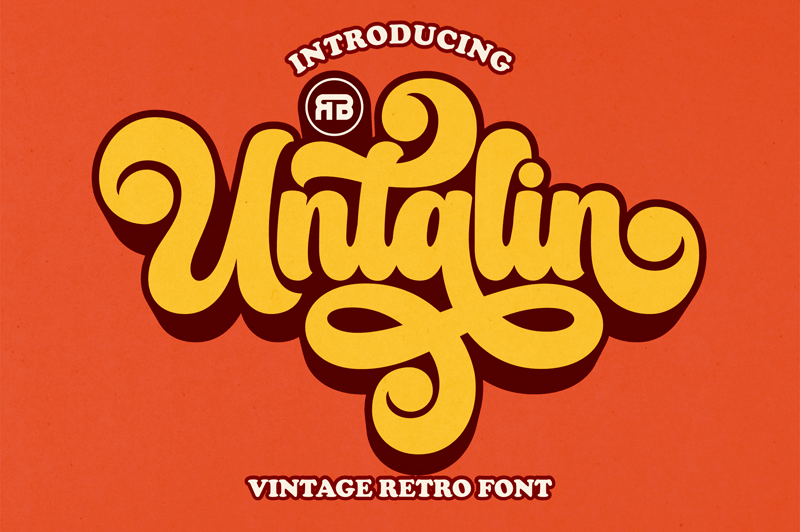
Font name: | Untalin |
Author: | RGB Studio |
Untalin is a Vintage retro font. Inspired from retro typography and lettering in the 70's and 80's combine with bold typography style. This demo font is for PERSONAL USE ONLY! But any donation are very appreciated. Paypal account for donation : https://PayPal.Me/payrgbstudio Link to purchase full version and commercial license : https://crmrkt.com/rp0xqr For Extended License or Corporate License Please Reach Us on email : rgbstudio71@gmail.com if you need something! Happy Designing! Thank you. Regards, RGB Studio |